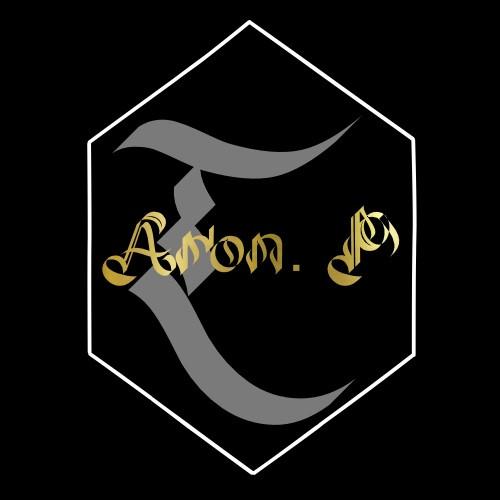
Classic Design Font Description
Classic design is a curly and sophisticated handwritten font. Use it for creative invitations, apparel designs, magazines, or any other daring project that requires a bold touch! This font is PUA encoded which means you can access all of the glyphs and swashes with ease!